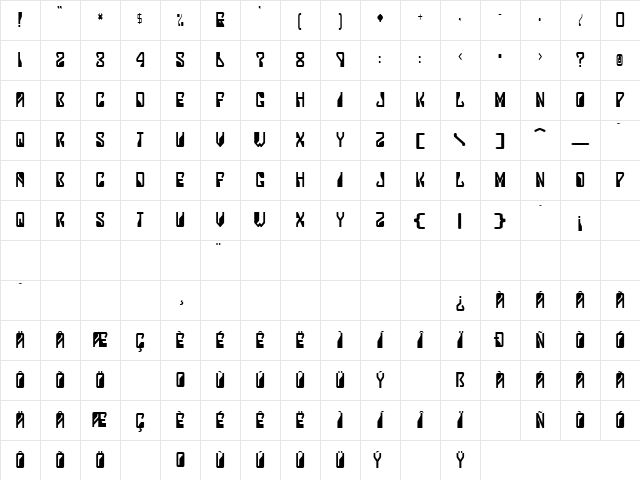
Complete Lady Starlight Regular glyph index. Displaying only characters natively supported by Lady Starlight Regular font.
Lady Starlight is a composed and adaptable typeface that performs quietly and consistently across a wide range of design contexts. Its slender proportions lend an understated elegance to any composition.